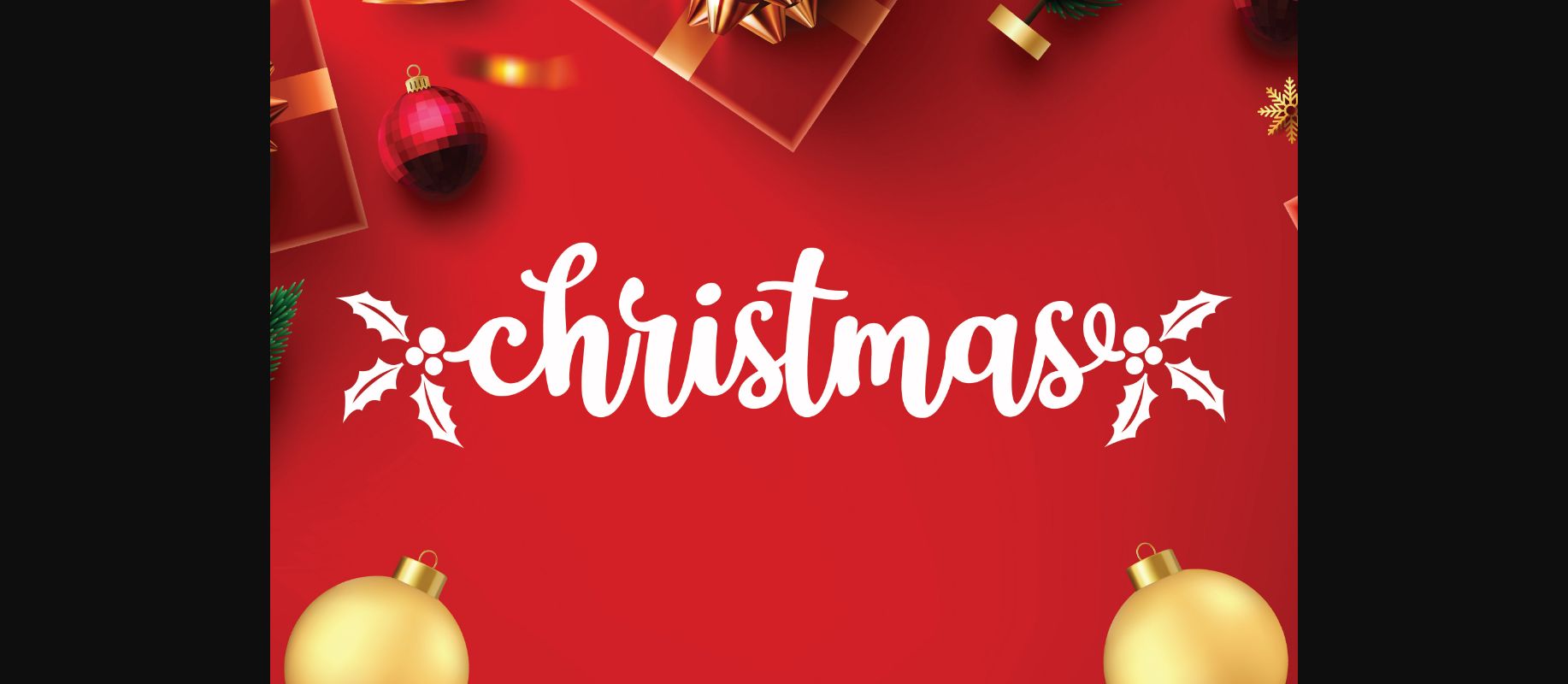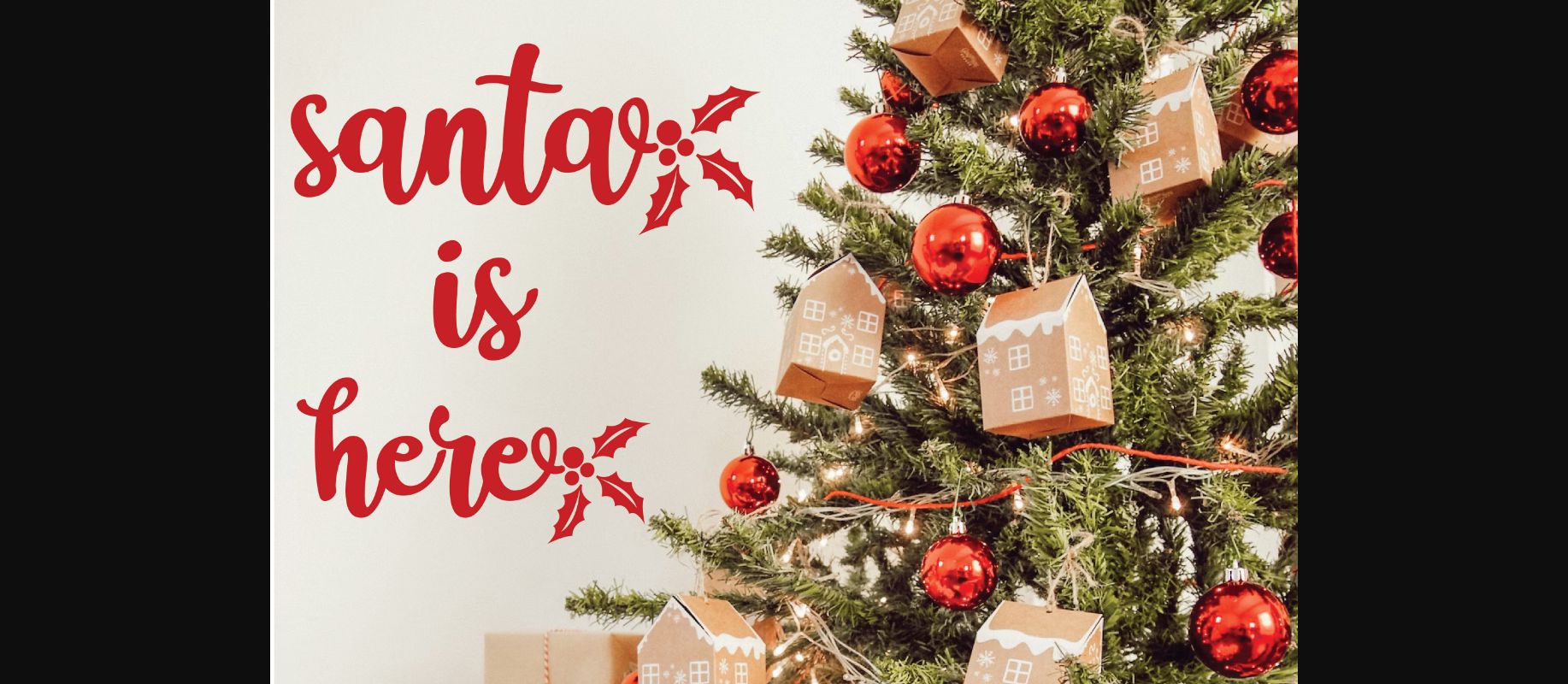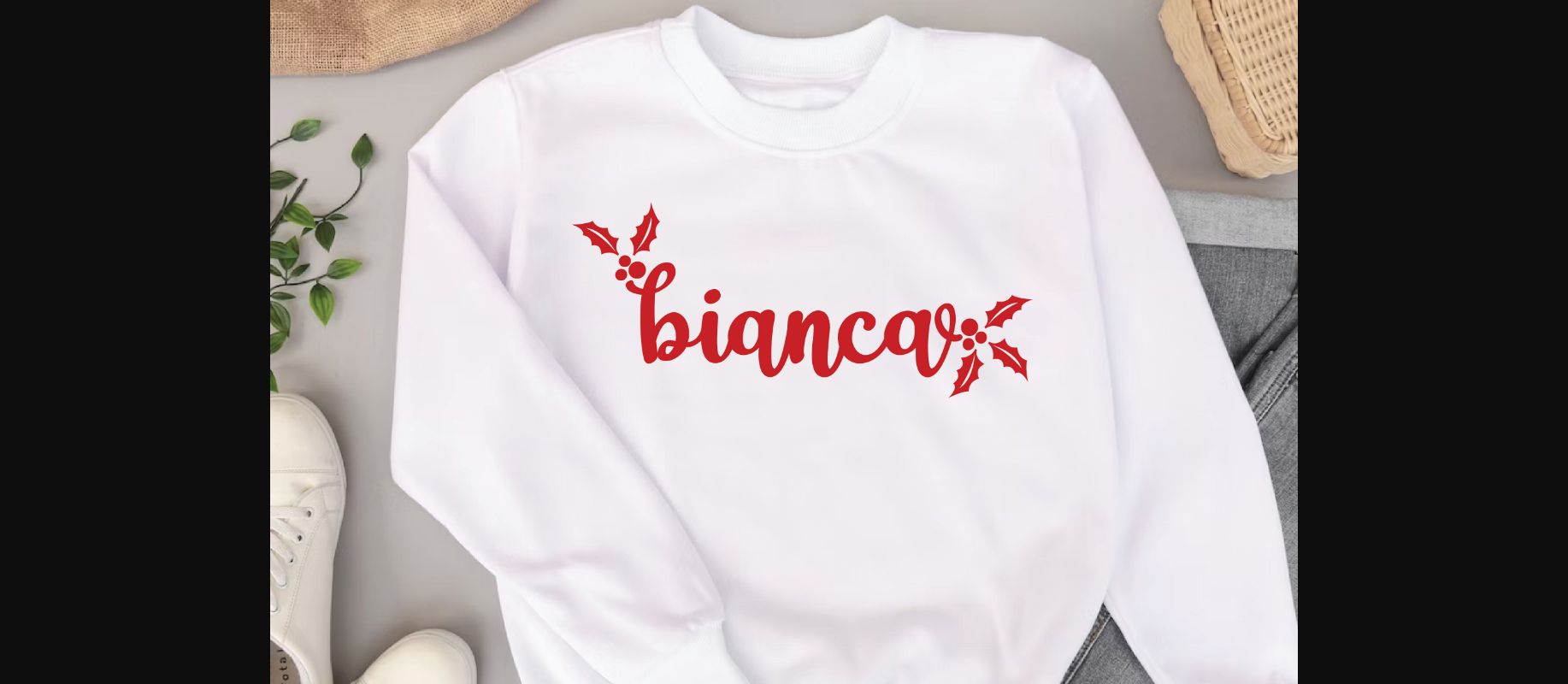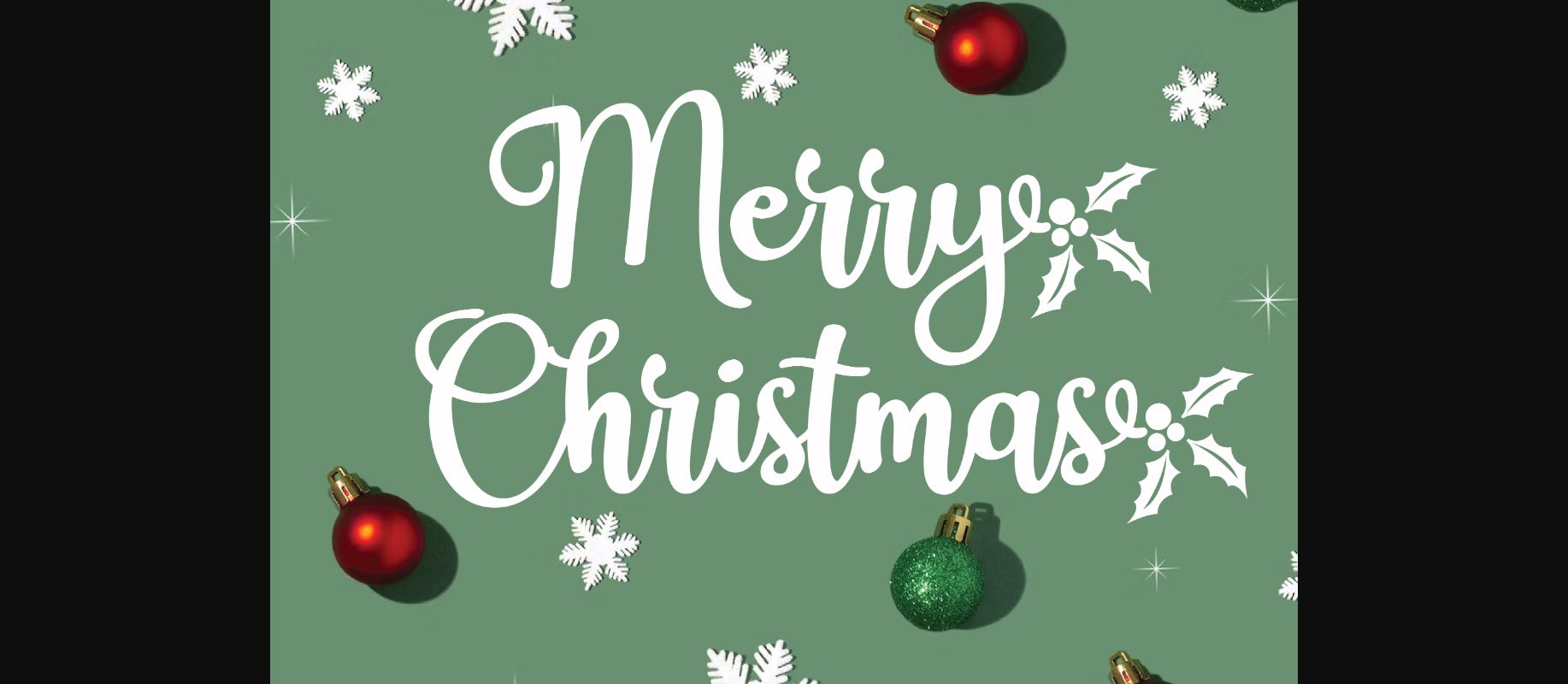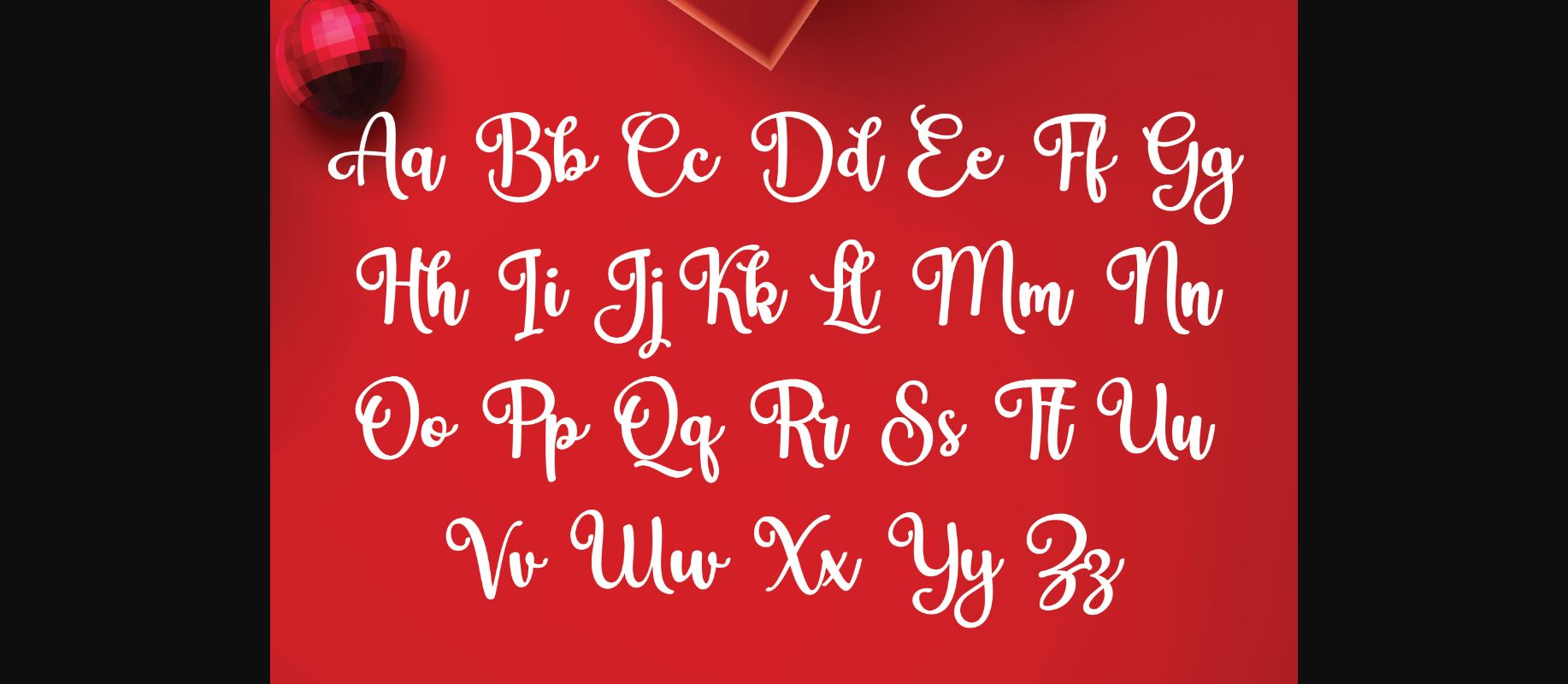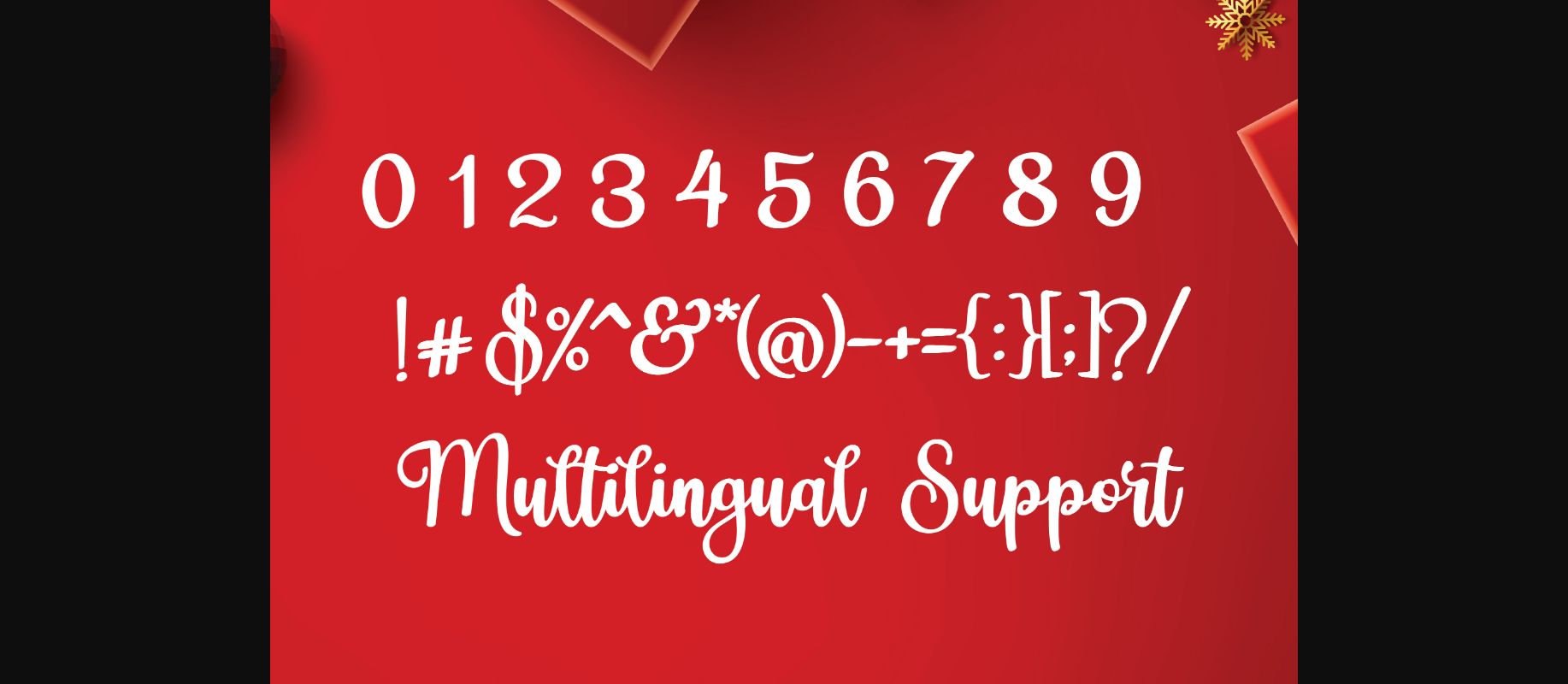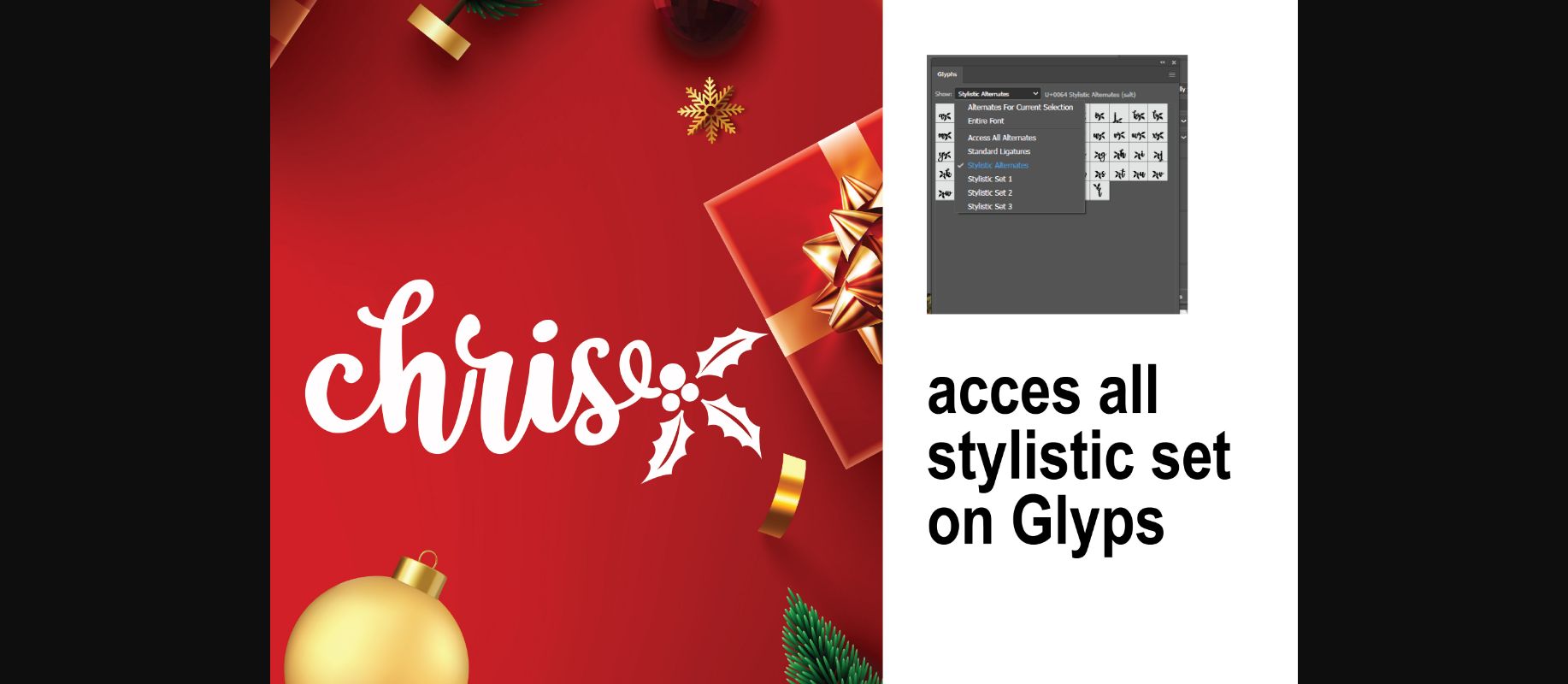
HomeDecorative FontsChristmas Holly Font Decorative Fonts Christmas Holly Font FacebookXPinterestWhatsApp 1 of 9 ... Christmas Holly Font Poster 2... Christmas Holly Font Poster 3... Christmas Holly Font Poster 4... Christmas Holly Font Poster 5... Christmas Holly Font Poster 6... Christmas Holly Font Poster 7... Christmas Holly Font Poster 8... Christmas Holly Font Poster 9... About Christmas Holly Font Christmas Holly is a cute script decorative font. This font dedicated to awesome celebration days is perfect for writing christmas invitations, cards, or any other design that requires a soft, characterful touch! DOWNLOAD NOW People also explored Springkle Opening Font Mortised Vignettes Font Degres Script Font Shinkers Font Sophan Font Arbeta Font Mellow Font Milkshake Font Navy Blue Can Cooler Mockup 458 0 TagsChristmas Holly Font Previous articleKristmas FontNext articleSurf Boards Font LEAVE A REPLY Cancel reply Comment: Please enter your comment! Name:* Please enter your name here Email:* You have entered an incorrect email address! Please enter your email address here Website: Save my name, email, and website in this browser for the next time I comment. Personal Use Free Avatarock Personal Use Free Read more about this font Veronica Personal Use Free Read more about this font Zephan Personal Use Free Read more about this font Panaroe Personal Use Free Read more about this font BLOG Free vs Paid Fonts: Why Investing in Premium Fonts Is Worth It Free vs Paid Fonts: Why Premium Fonts Are Worth It in 2025 The debate of free vs paid fonts continues in the design world. While... How to Cut Any Font on Cricut: Convert a Font to SVG (Free) Fonts That Capture the Spirit of New York City To increase your work productivity, choose the most readable fonts.